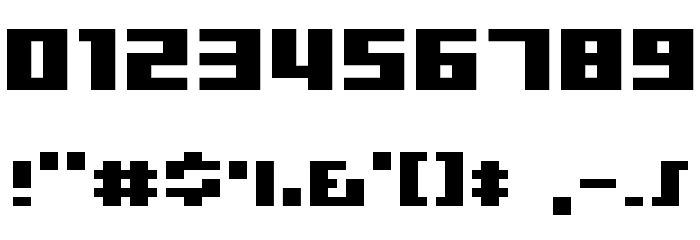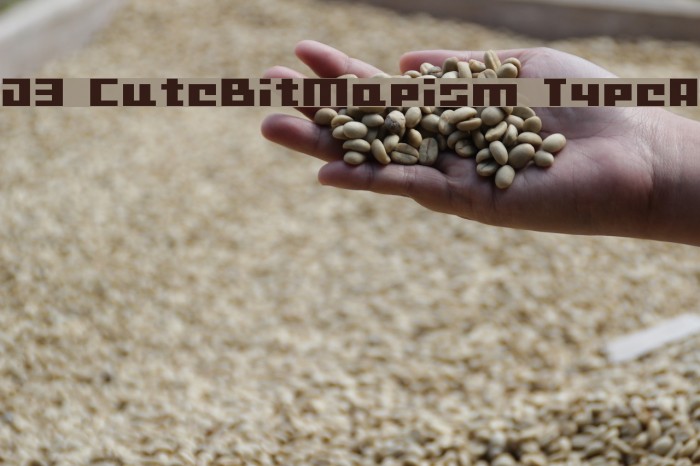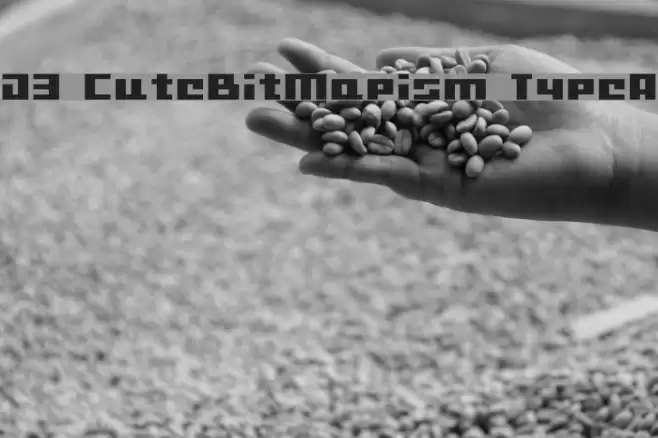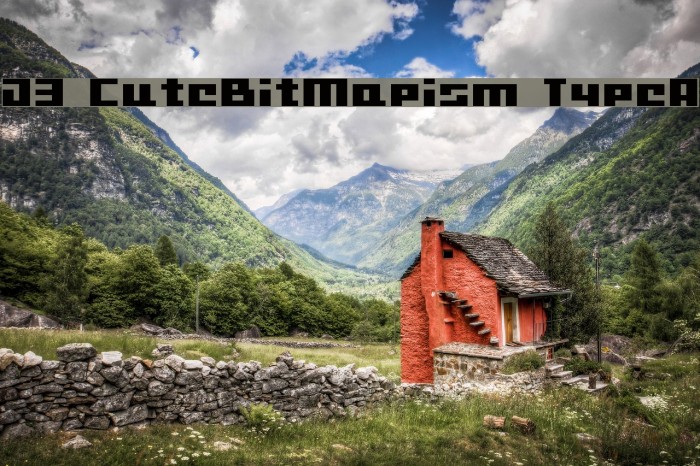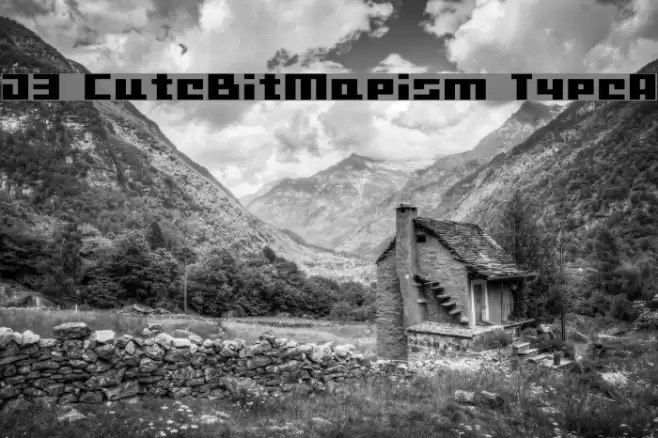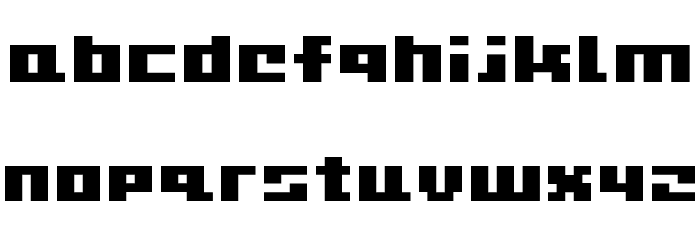
D3 CuteBitMapism TypeA Font
D3 CuteBitMapism TypeA Description
This font features a bold, pixelated design reminiscent of retro video games and digital displays. Each character is constructed with a blocky, geometric style that emphasizes straight lines and right angles, creating a distinctly digital aesthetic. The uppercase and lowercase letters maintain a consistent height, contributing to a uniform appearance. Numbers and special characters follow the same pixelated pattern, ensuring visual cohesion across all elements. The font's simplicity and clarity make it highly legible, even at smaller sizes, while its unique style adds a playful, nostalgic touch to any design.
| Overall Style | Retro, Digital |
| Proposed Projects | Ideal for video game graphics, retro-themed posters, digital art projects, and tech-related branding. |